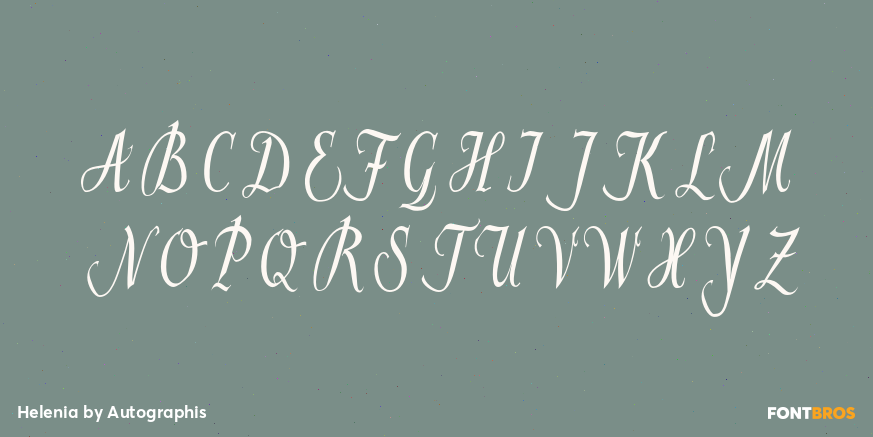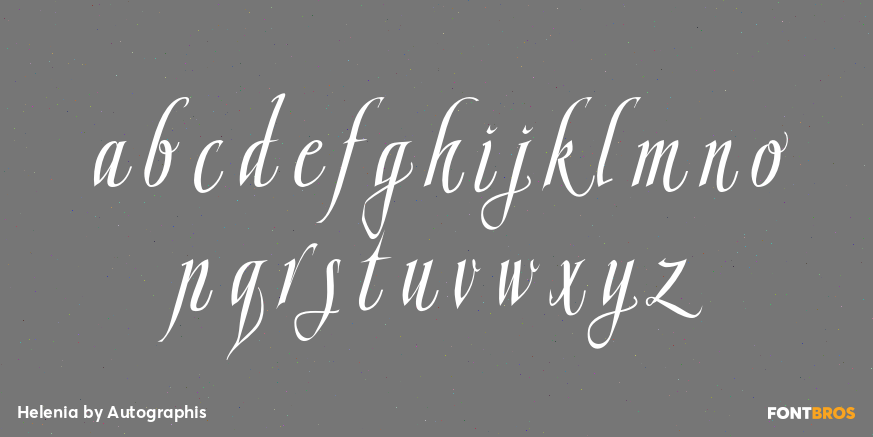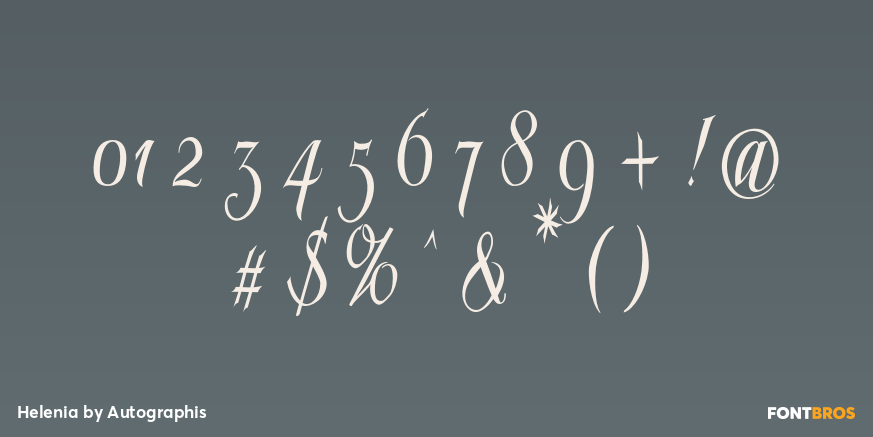
Helenia
Font Family by Autographis
Helenia is a classic broad-nib script with joining letters.
Written with a pen on rough paper, scanned and then carefully digitized to keep that rough touch.